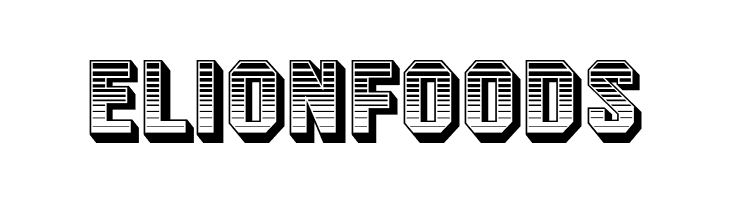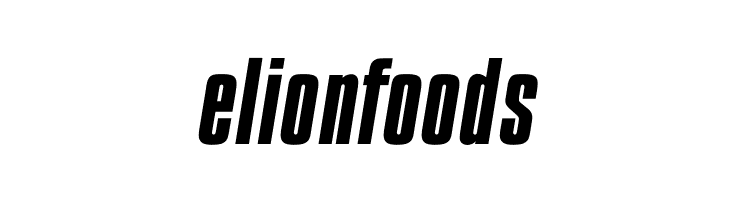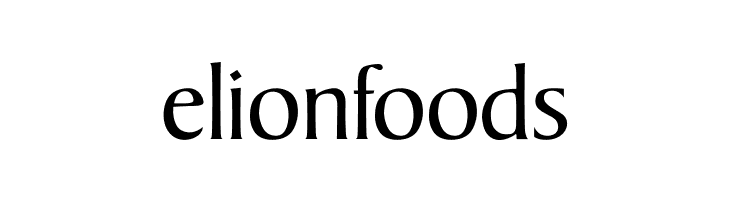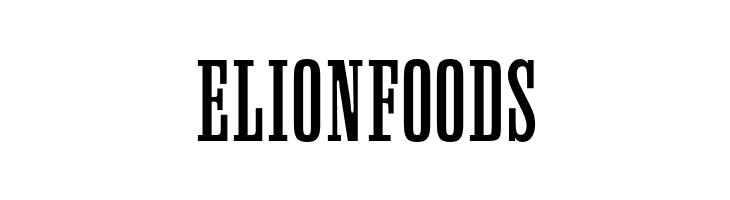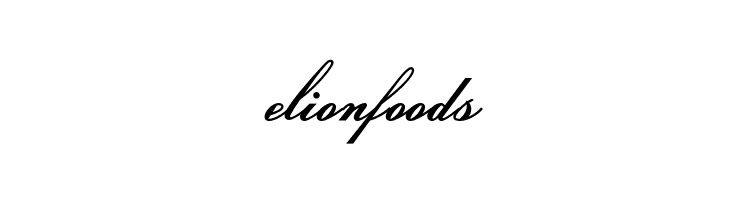
A bold, blocky font with thick strokes and a strong presence.
A classic serif font with elegant strokes and balanced proportions.
A bold, three-dimensional font with a shadow effect and striped pattern.
A classic serif font with elegant and balanced characters.
A classic serif font with elegant strokes and high contrast, ideal for refined designs.
An elegant script font with flowing, cursive letterforms and intricate flourishes.
A bold, classic serif font with strong, authoritative strokes.
A bold, italic font with tight spacing and a modern, dynamic style.
A bold, chiseled font with a three-dimensional effect and expanded width.
A bold, elegant font with tall, narrow characters and high contrast strokes.
A bold, geometric typeface with strong, uniform strokes and a modern aesthetic.
A bold, classic serif font with elegant proportions and strong strokes.
An elegant serif font with a medieval flair and sharp, pointed serifs.
A bold, high-contrast serif font with sharp serifs and elegant style.
A bold, modern font with geometric lines and elegant curves.
A classic serif font with elegant curves and a timeless appearance.
A bold, high-contrast serif font with elongated characters and a modern yet classic style.
A bold, modern font with strong lines and tight spacing, perfect for impactful designs.
A bold serif typeface with a classic and authoritative style.
A bold, decorative font with a three-dimensional, shadowed style.
A classic, high-contrast serif font with a semi-compressed style.
An elegant script font with flowing, cursive letterforms and sophisticated style.
An elegant and ornate script font with flowing, cursive letterforms.
A bold, condensed font with tall, narrow letterforms and a modern, impactful style.
A bold, clean font with strong lines and excellent legibility.
A bold, modern font with clean lines and a professional appearance.
A bold, impactful font with thick, uniform strokes and a strong visual presence.
A bold, modern font with thick, uniform strokes for strong visual impact.
A tall, narrow font with a modern, elegant design and minimal contrast.
A bold, modern font with tall, narrow characters and a clean design.
A bold, high-contrast serif font with strong, pronounced serifs.
A classic serif font with elegant strokes and high contrast, ideal for traditional and sophisticated designs.
A classic serif font with medium weight and italic style, offering elegance and readability.
A dynamic script font with fluid, cursive letterforms and a handwritten feel.
A bold, modern font with strong, uniform strokes and excellent readability.